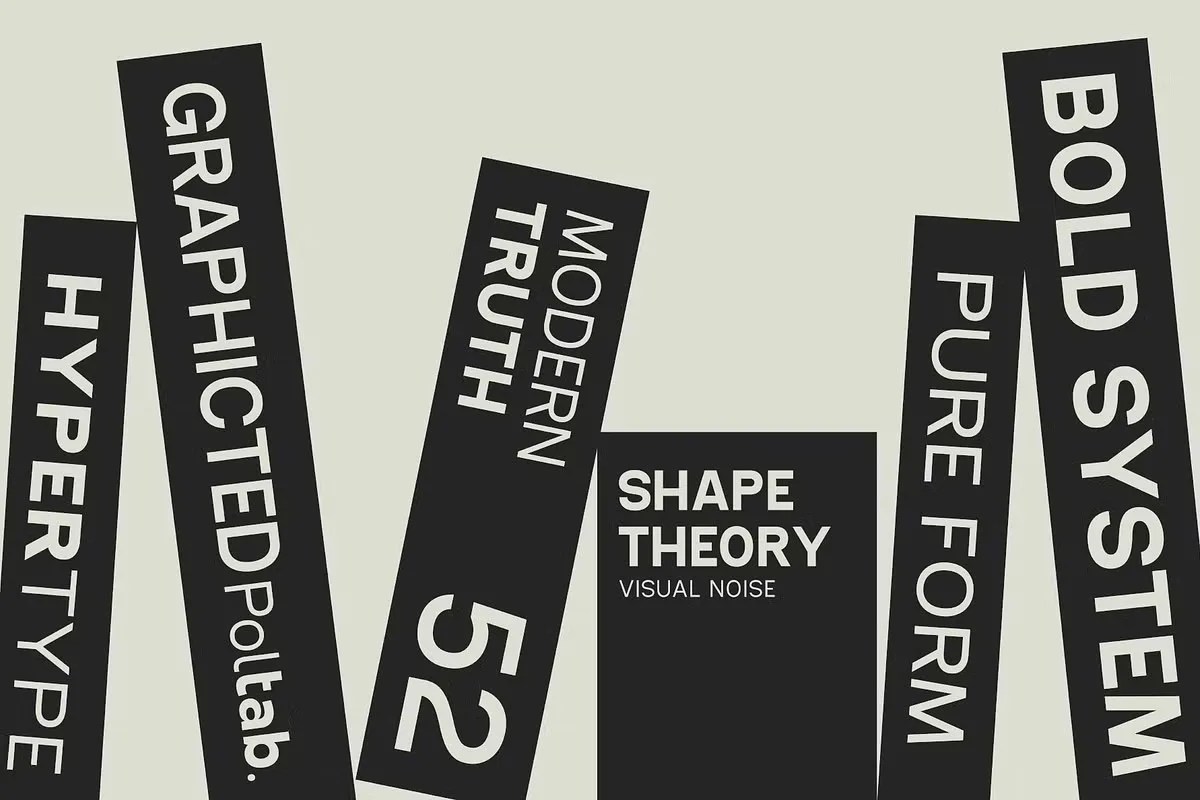
Poltab by Glyphminds Studios. This is a clean and structured modern geometric font that brings a sense of order and precision to any design. The font is built on a foundation of strong angles and uniform, consistent lines. This approach gives it a confident, technical, and highly legible appearance. Poltab is ideal for projects that value clarity, structure, and a contemporary technological style. It communicates information efficiently and with purpose.
This font excels in digital and technical applications. Specifically, its superb clarity makes it an excellent choice for user interfaces and website navigation. Users can read its characters easily on any screen size. Furthermore, this modern geometric font is perfect for branding technology companies or innovative software startups. It communicates a feeling of efficiency and reliability. Use it for data visualizations, infographics, or any design that needs to present complex information with absolute clarity and confidence.
• Clean and modern sans serif style
• Features strong, uniform geometric shapes
• Ideal for tech branding, UI design, and headlines
• Provides excellent clarity and readability
Poltab